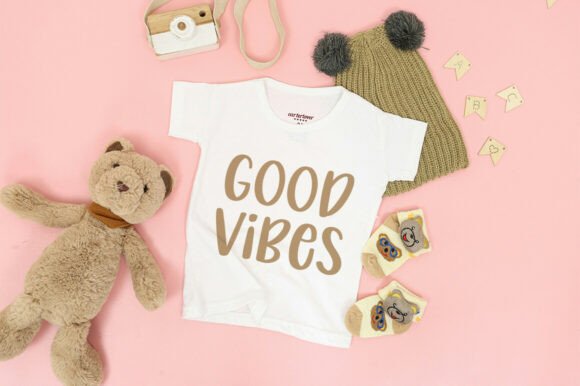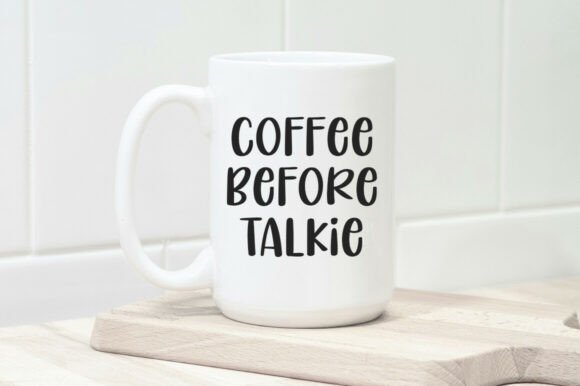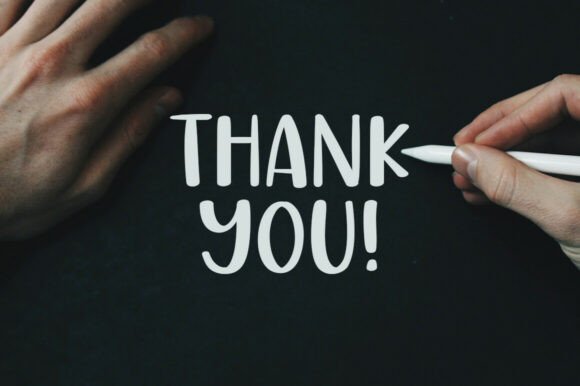
Dreamy Font: A Soft Touch for Personal Projects
Imagine being able to transport your audience to a world of cozy comfort, where digital note-taking and journaling come alive with a personal touch. Introducing Dreamy, a handwritten display font that captures the essence of warmth and approachability, perfect for designers and crafters looking to add a touch of personality to their projects.
The Characteristics of Dreamy Font
Dreamy is defined by its rounded, friendly letterforms and smooth, consistent strokes that make it incredibly easy to read. Unlike rigid formal fonts, Dreamy offers a personal touch that feels like a message from a close friend. Its effortless beauty and cozy vibe make it an ideal choice for a wide range of applications, from digital planners and social media quotes to lifestyle branding and artisanal product packaging.
The Benefits of Using Dreamy Font
So, why choose Dreamy font for your next project? Here are just a few benefits that make it an attractive option for designers and crafters:
- Approachable aesthetic: Dreamy’s friendly and rounded letterforms create an approachable aesthetic that works wonders for labels and packaging for artisanal products like candles, skincare, or stationery.
- Easy to read: The smooth, consistent strokes of Dreamy font make it incredibly easy to read, even at smaller sizes.
- Personal touch: Dreamy offers a personal touch that feels like a message from a close friend, perfect for crafting heartfelt greeting cards or designing minimalist blog headers.
- Versatile: Dreamy font is versatile and can be used for a wide range of applications, from digital planners and social media quotes to lifestyle branding and packaging.
Perfect for Digital Planners and Journaling
Dreamy font is a natural fit for digital planners and journaling. Its effortless beauty and cozy vibe make it perfect for creating a sense of calm and authenticity on your digital canvas. Whether you’re designing a daily planner, a bullet journal, or a gratitude log, Dreamy font is the perfect companion to help you create a beautiful and functional design.
Ideal for Lifestyle Branding and Packaging
Dreamy font is also ideal for lifestyle branding and packaging. Its approachable aesthetic works wonders for labels and packaging for artisanal products like candles, skincare, or stationery. By using Dreamy font, you can create a cohesive brand identity that feels warm, welcoming, and authentic.
Tips for Using Dreamy Font
- Pair with complementary fonts: Pair Dreamy font with complementary fonts to create visual interest and add depth to your design.
- Experiment with colors: Experiment with different colors to find the perfect combination that complements your brand identity.
- Use for headlines and titles: Use Dreamy font for headlines and titles to create a bold and eye-catching design.
- Keep it simple: Don’t be afraid to keep it simple and use Dreamy font for body text or captions.
In conclusion, Dreamy font is a beautiful and versatile typeface that captures the essence of warmth and approachability. Its effortless beauty, cozy vibe, and approachable aesthetic make it perfect for designers and crafters looking to add a touch of personality to their projects. Whether you’re designing a digital planner, a lifestyle brand, or a handmade product, Dreamy font is the perfect companion to help you create a beautiful and functional design.
Get Creative with Dreamy Font
So, what are you waiting for? Get creative with Dreamy font and transport your audience to a world of cozy comfort. With its smooth strokes, rounded letterforms, and approachable aesthetic, Dreamy font is sure to become your new favorite typeface.